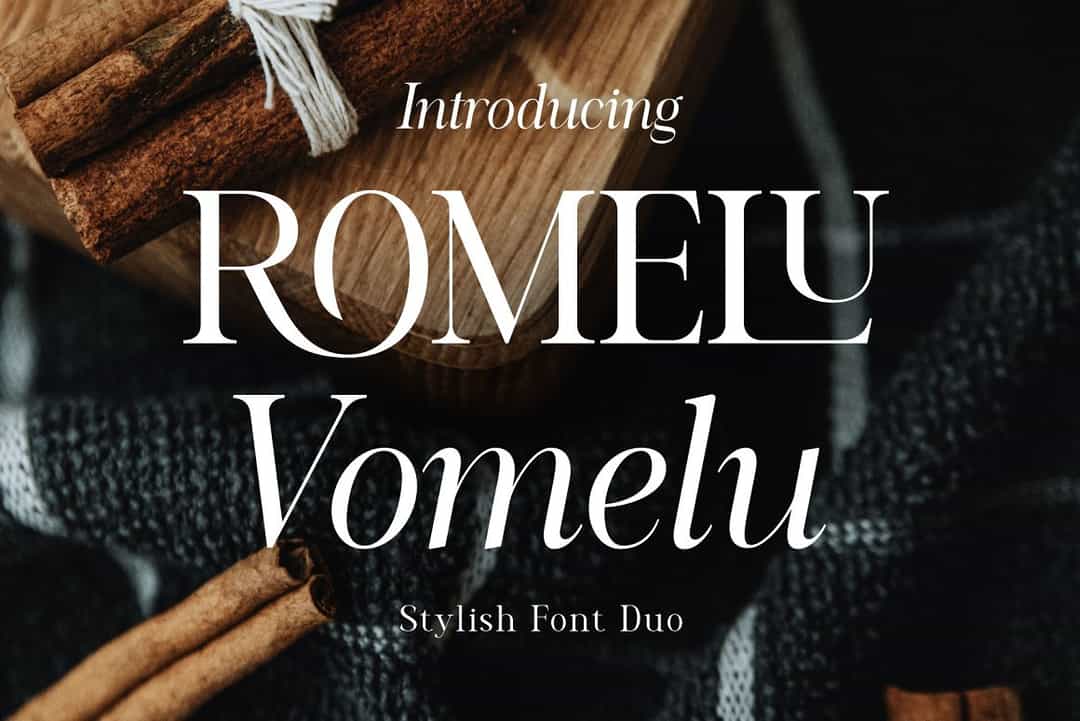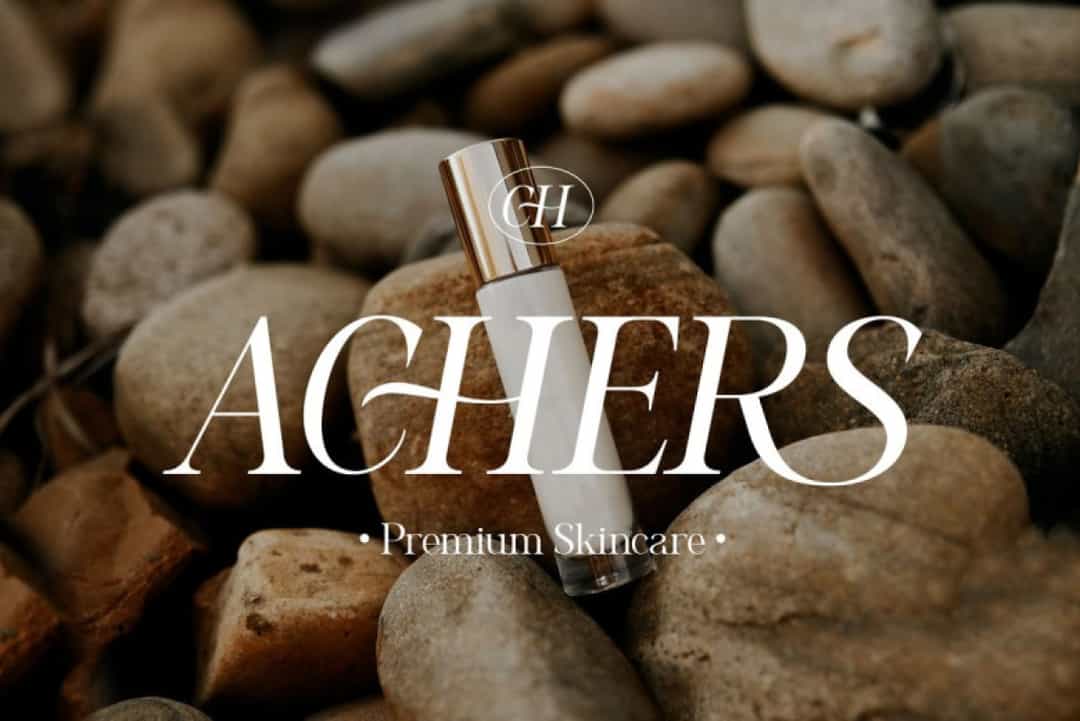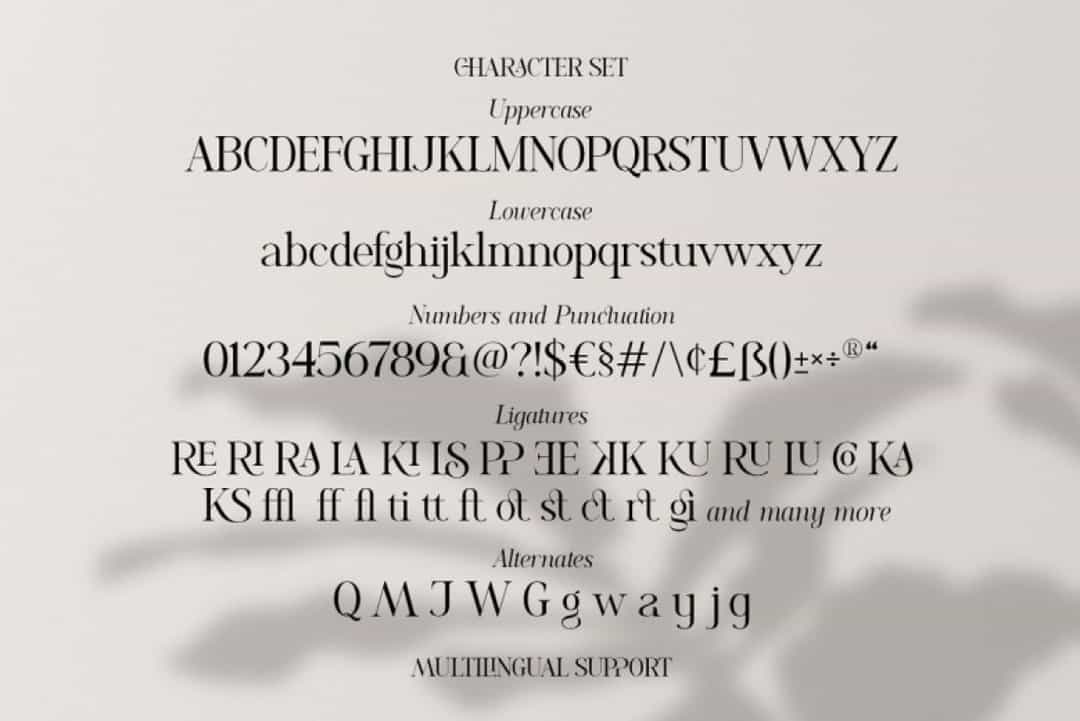
Romelu Vomelu, our modern font with its innovative design, draws its inspiration from classic serif fonts while its eye-catching italics will enhance any logo or display. Easy to blend and mix with other fonts such as sans serif signature and script fonts as well as italic fonts, Romelu Vomelu is designed for simplicity in mind!